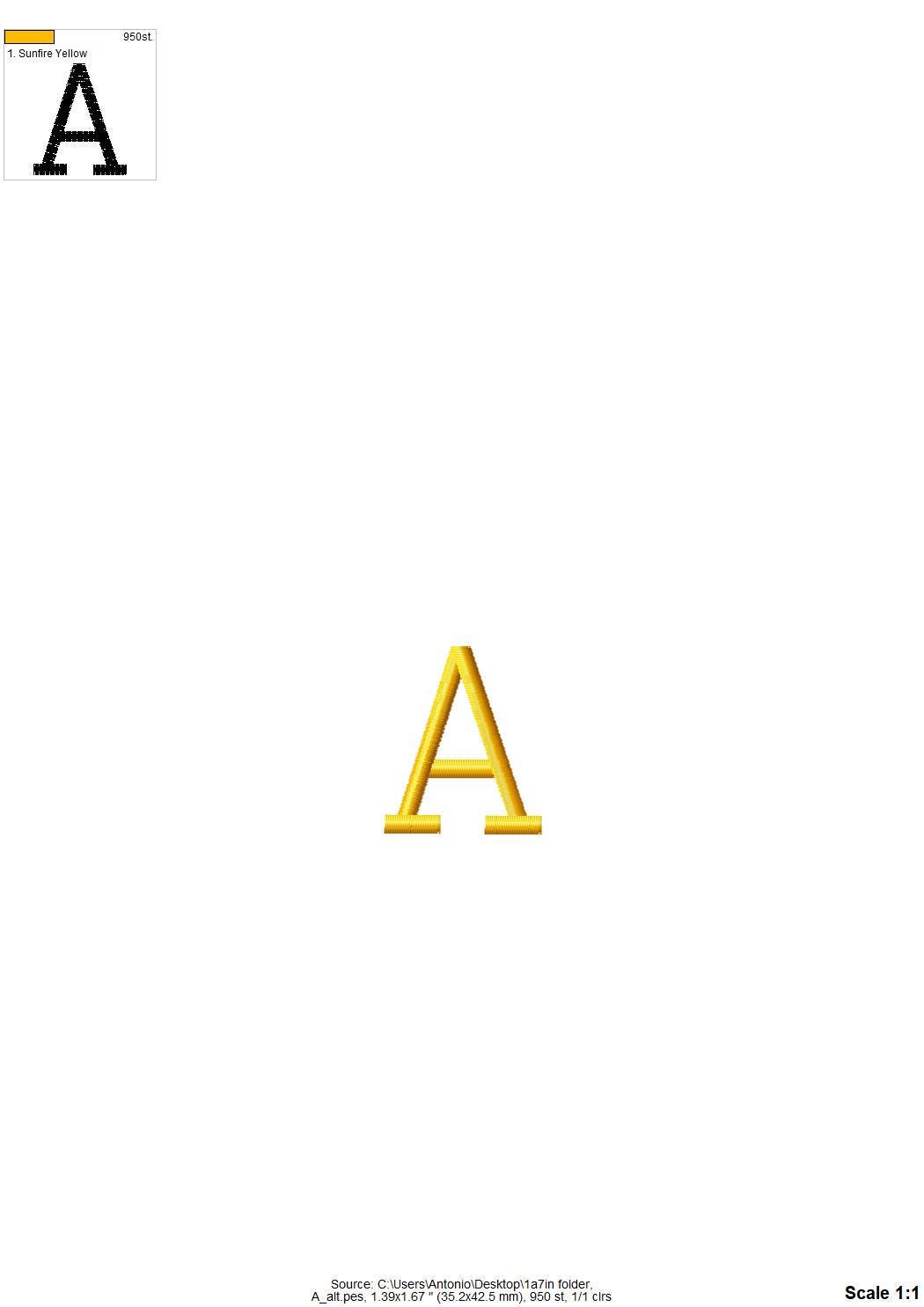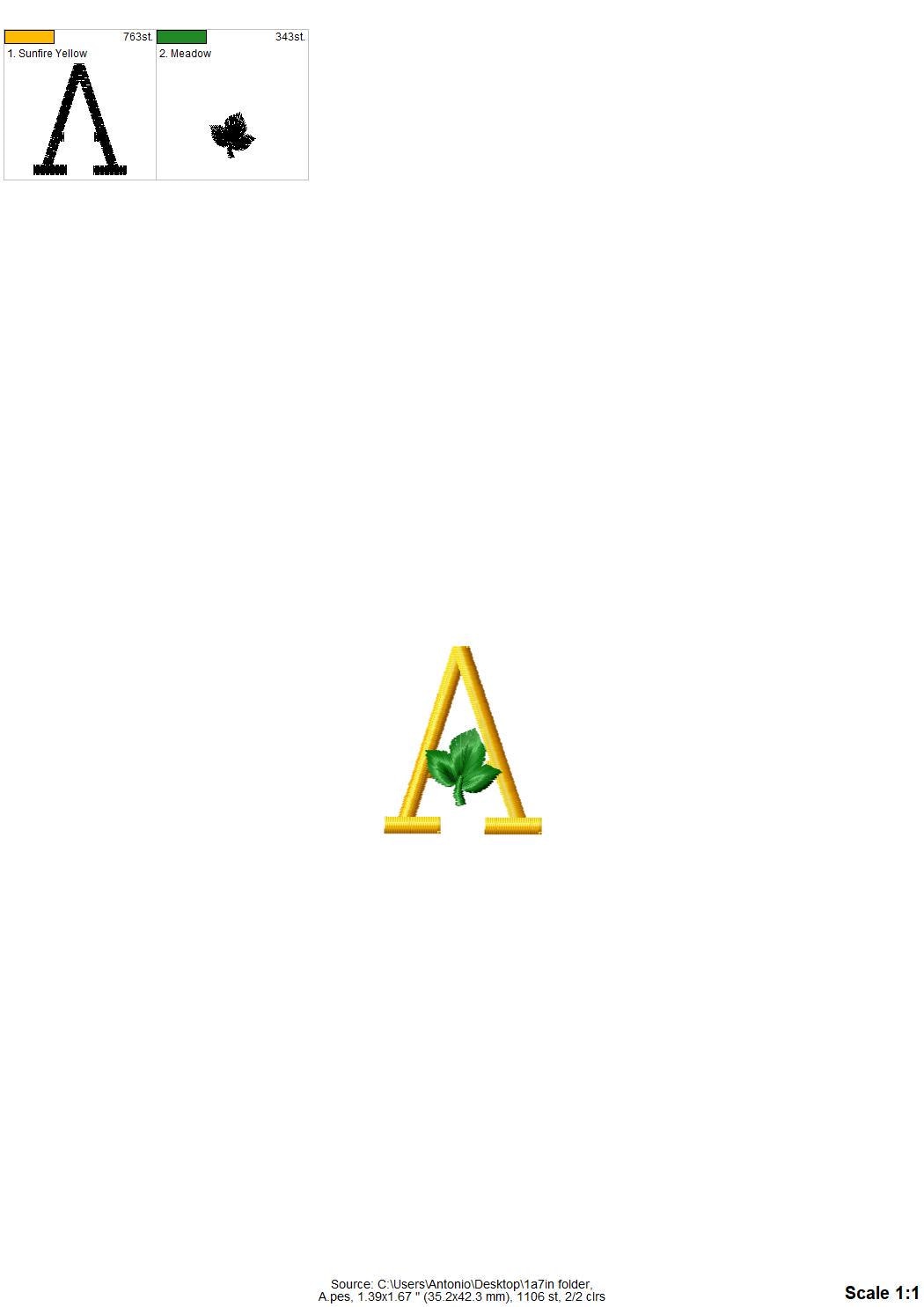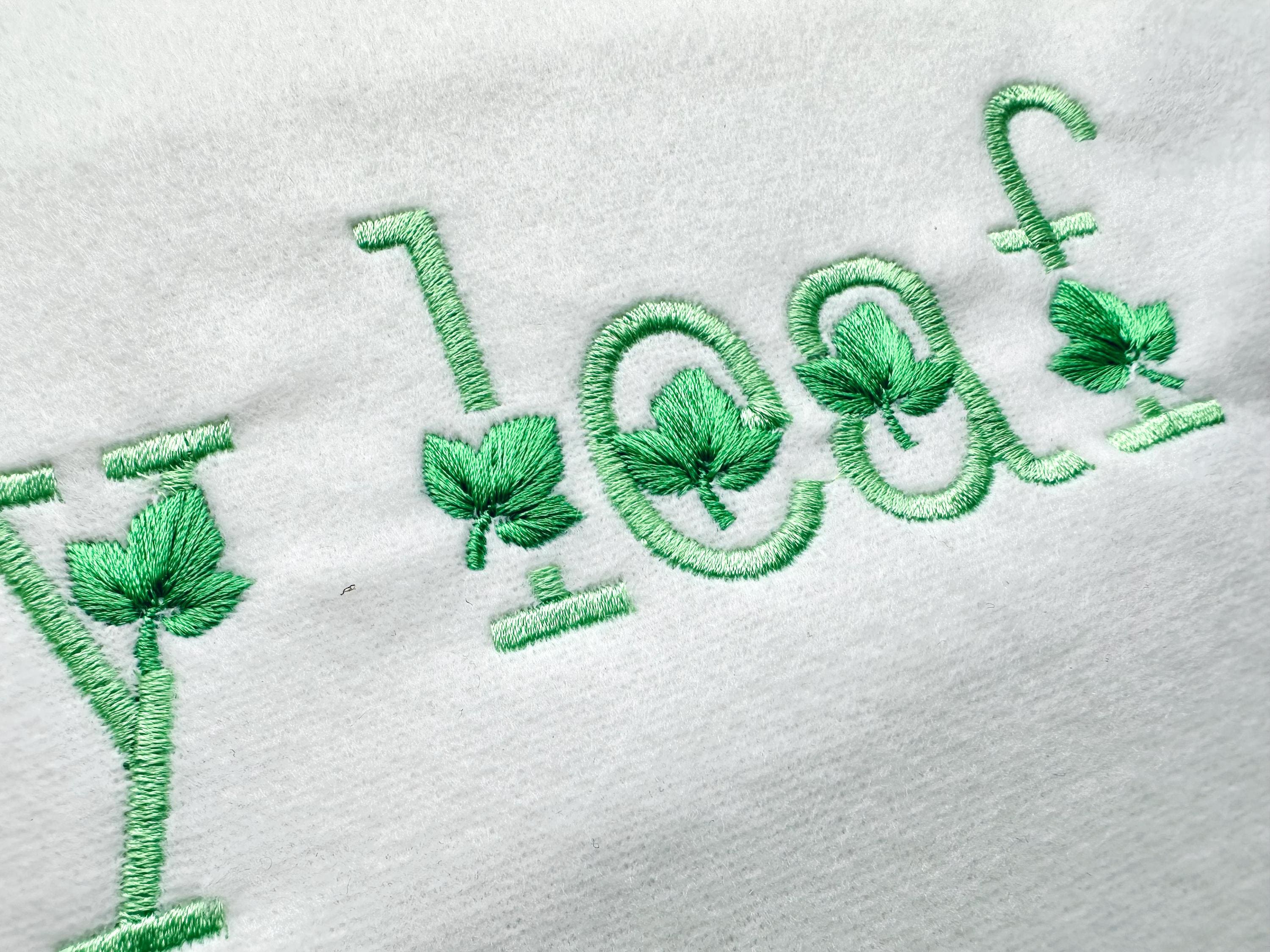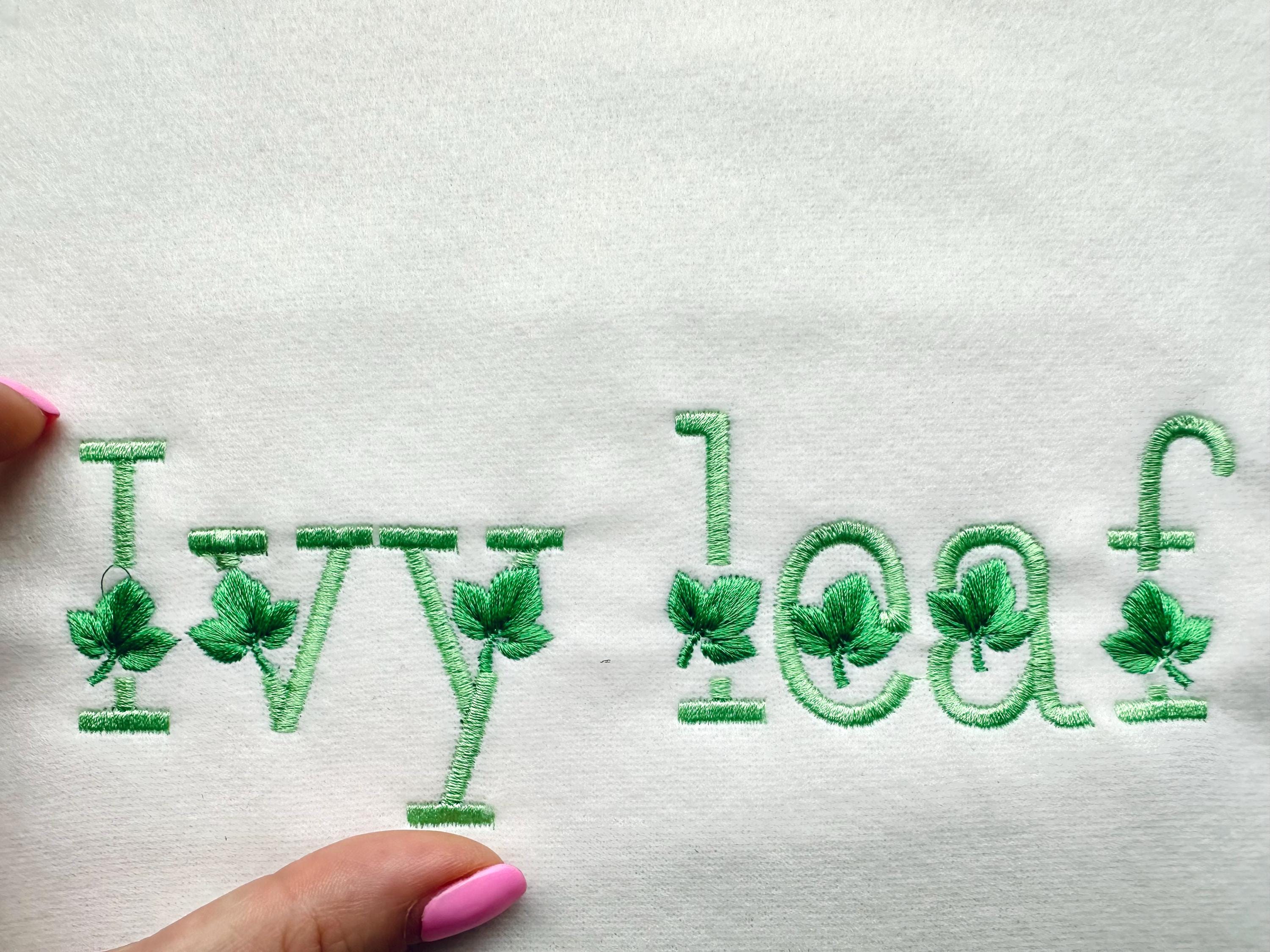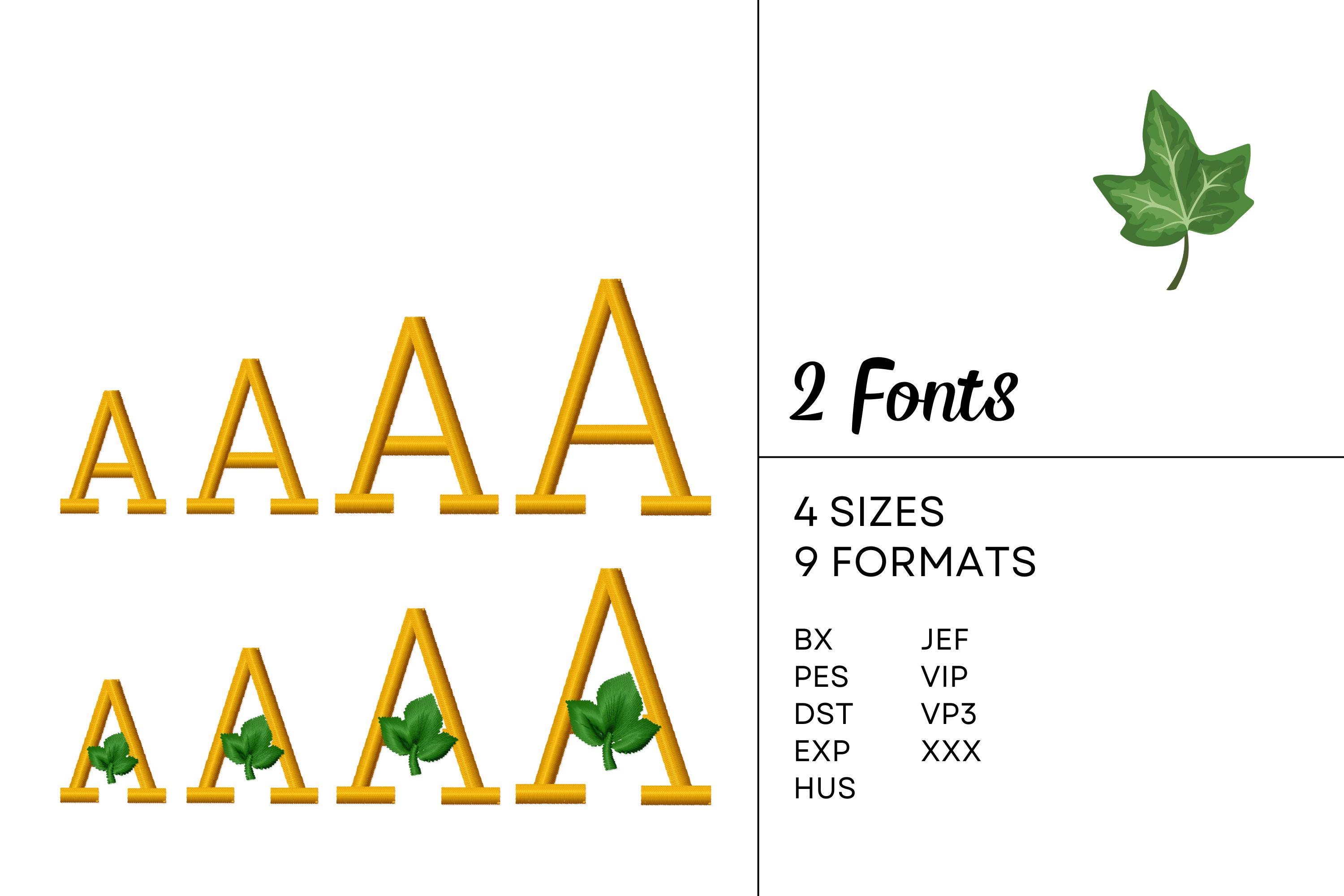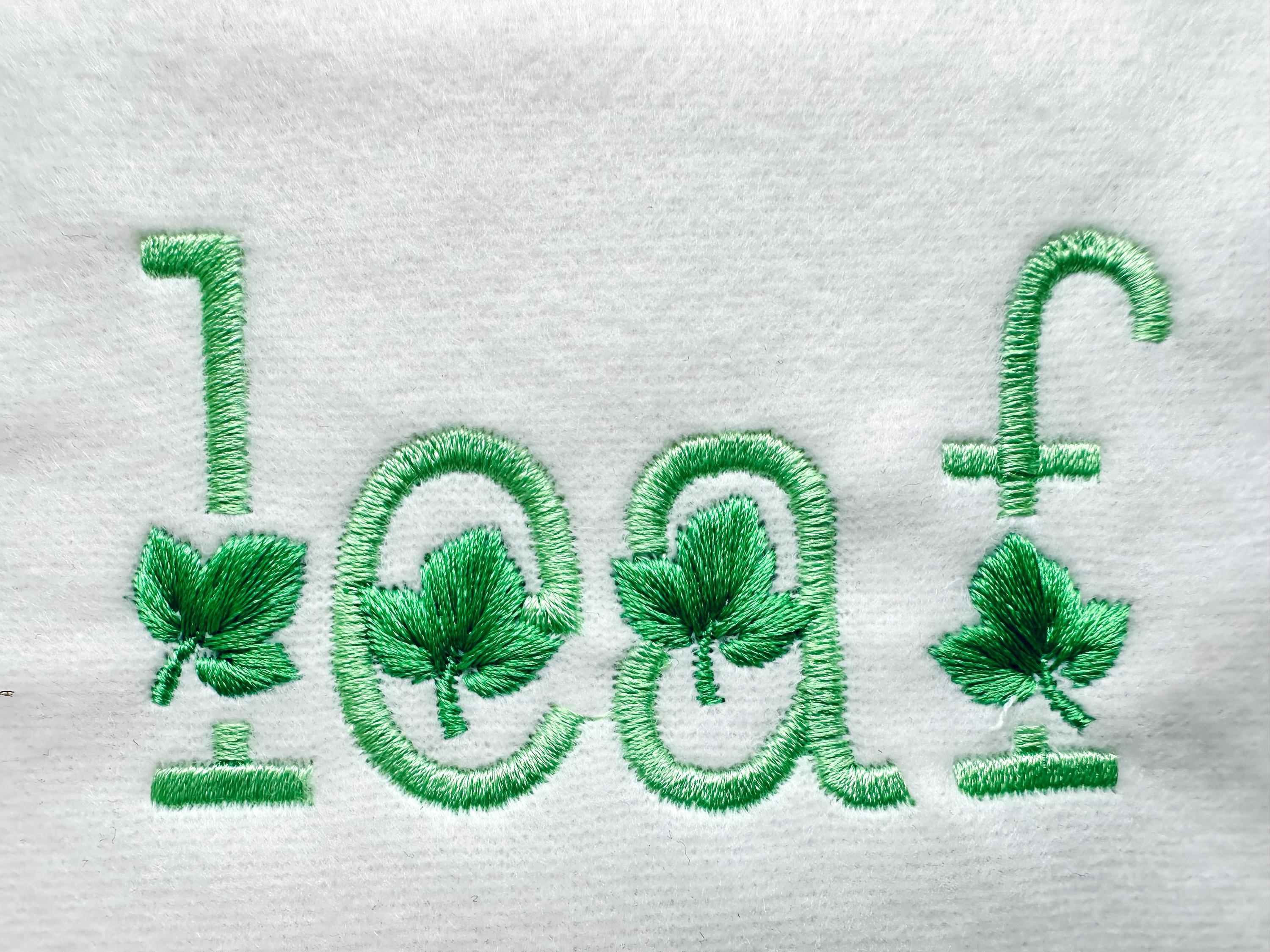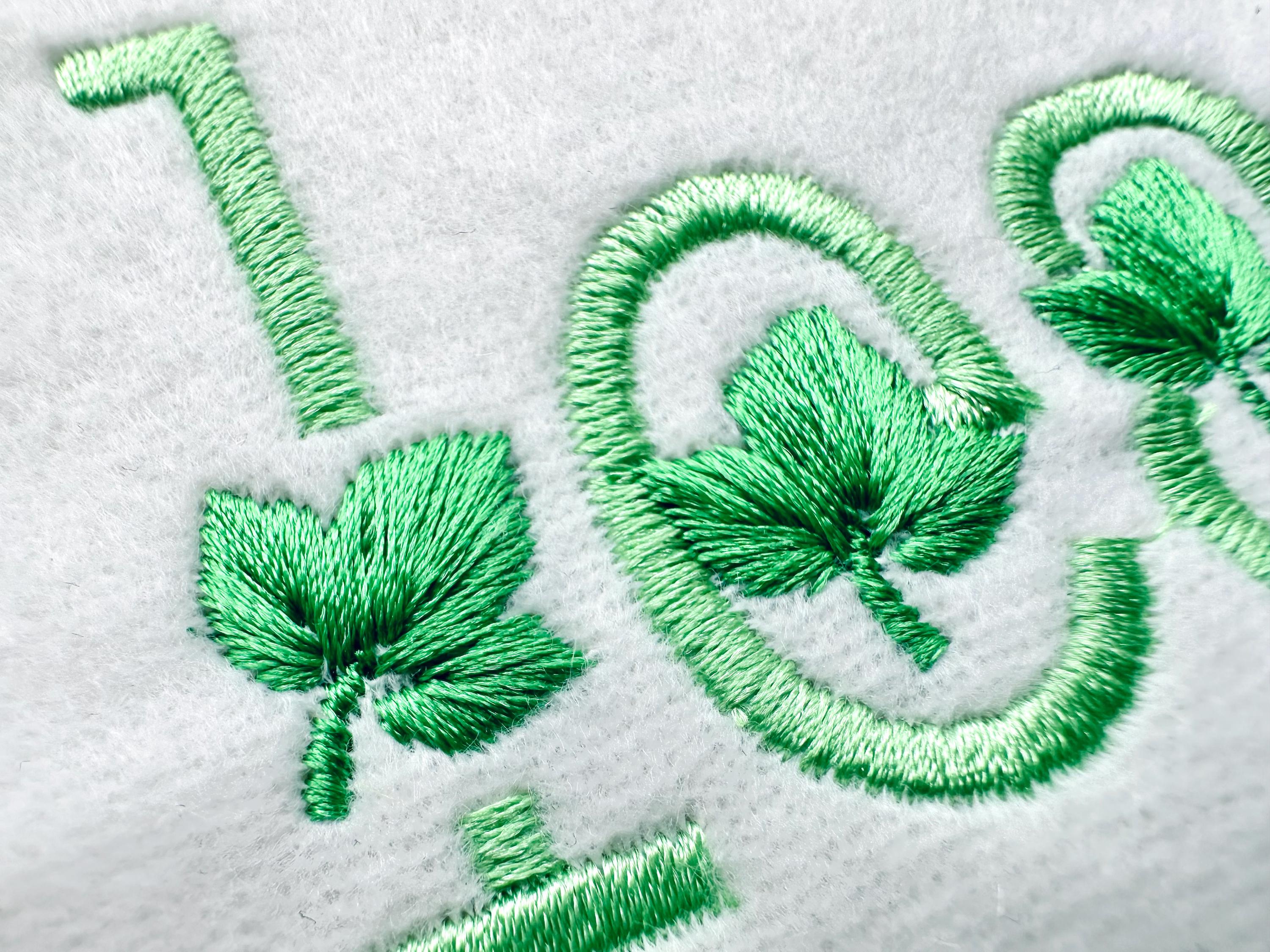
Satin stitch Ivy Leaf Font SET of 2 types Alphabet letters Floral Ivy Leaves Monogram machine embroidery designs mini sizes 1 up to 2 inch
Included 2 fonts:
* plain font whole alphabet: uppercase and lowercase letters, numbers, and punctuation
* Ivy Leaf font: uppercase and lowercase letters, and numbers.